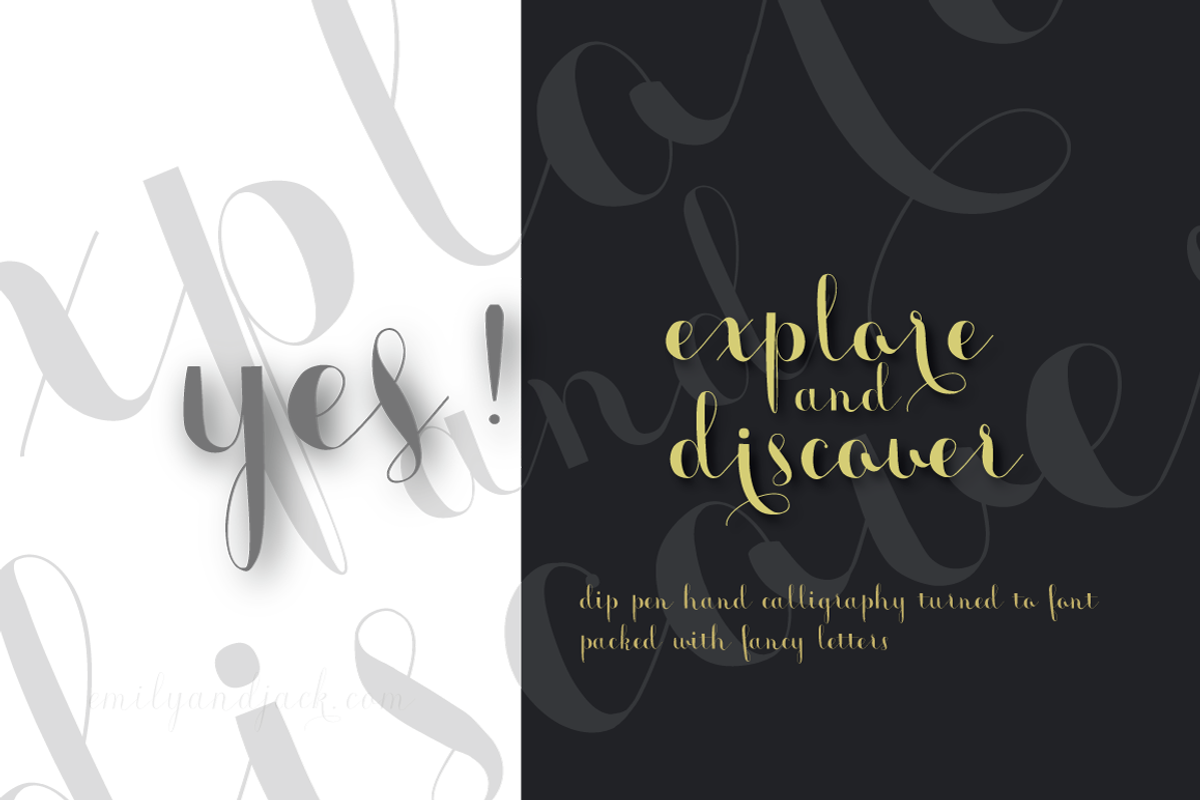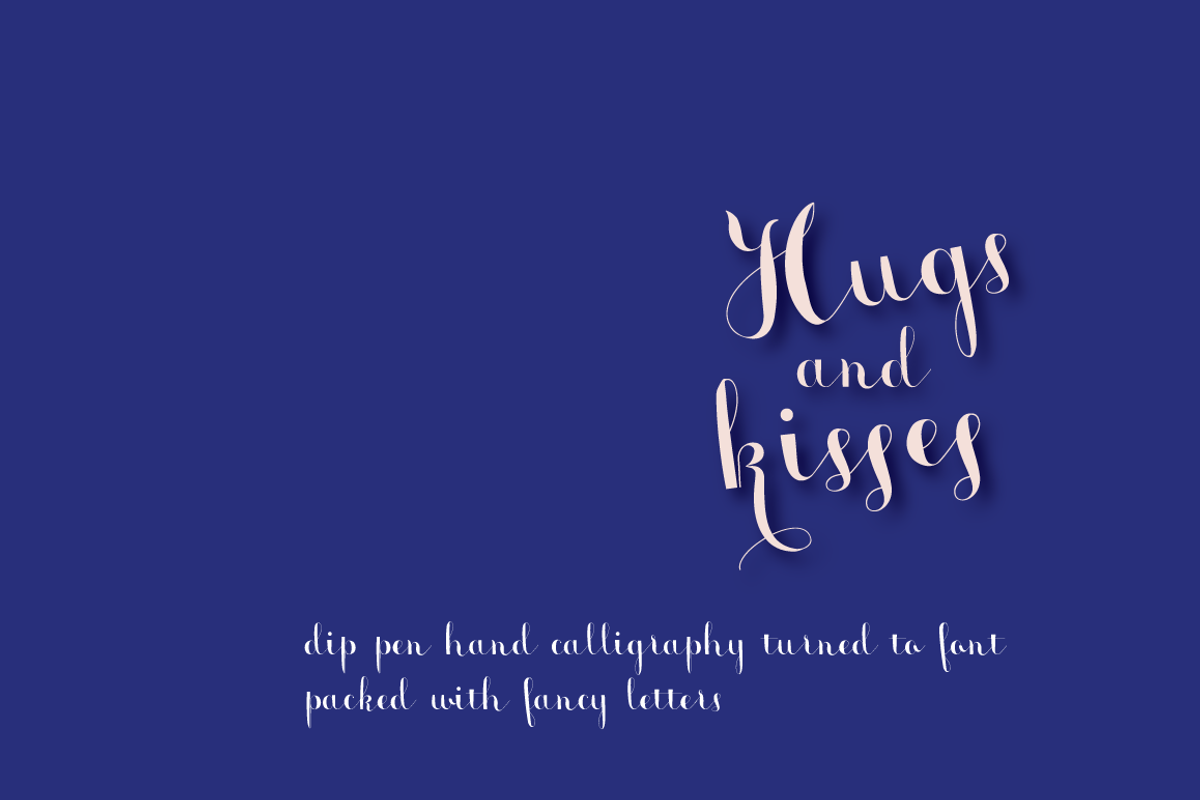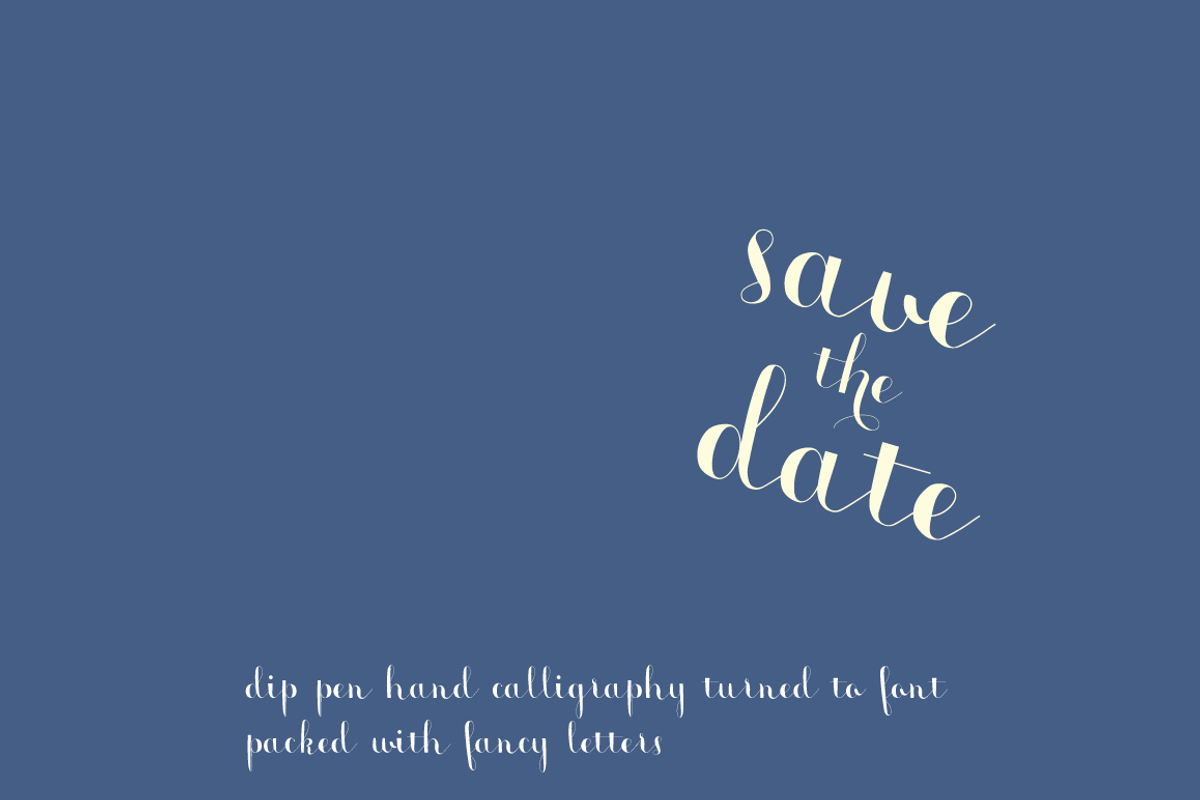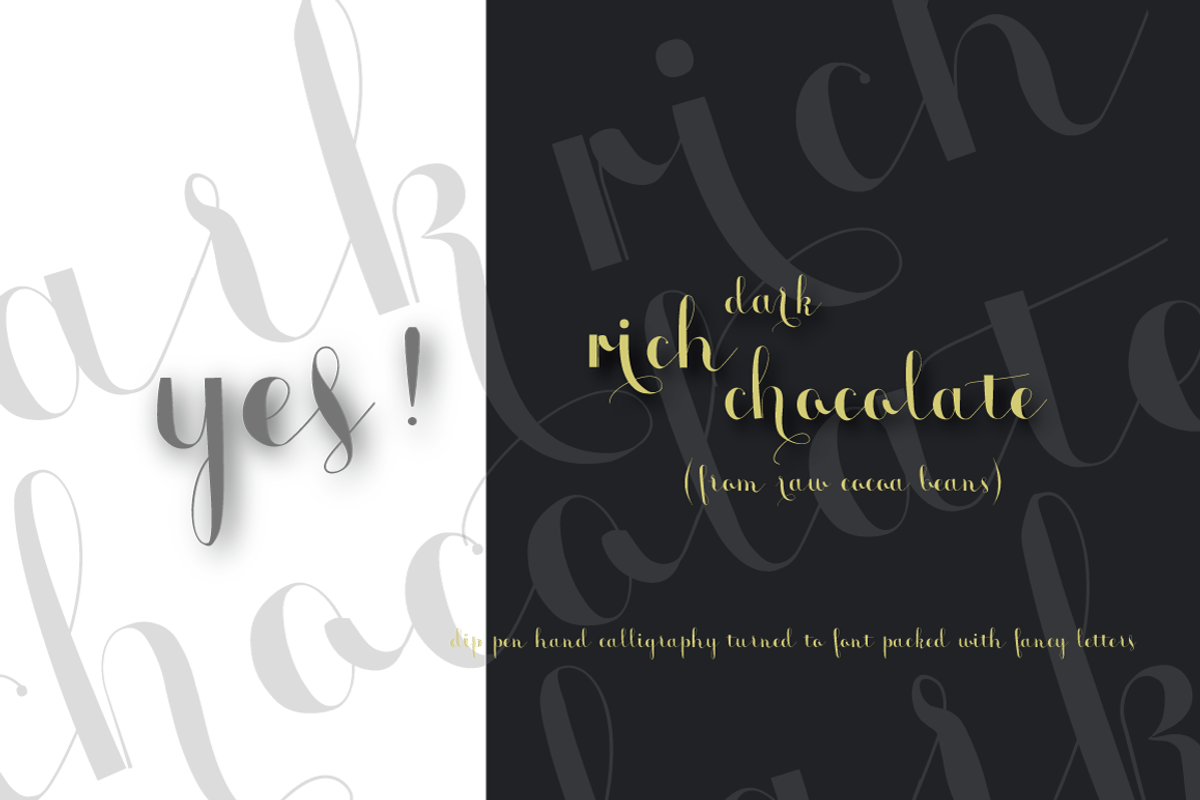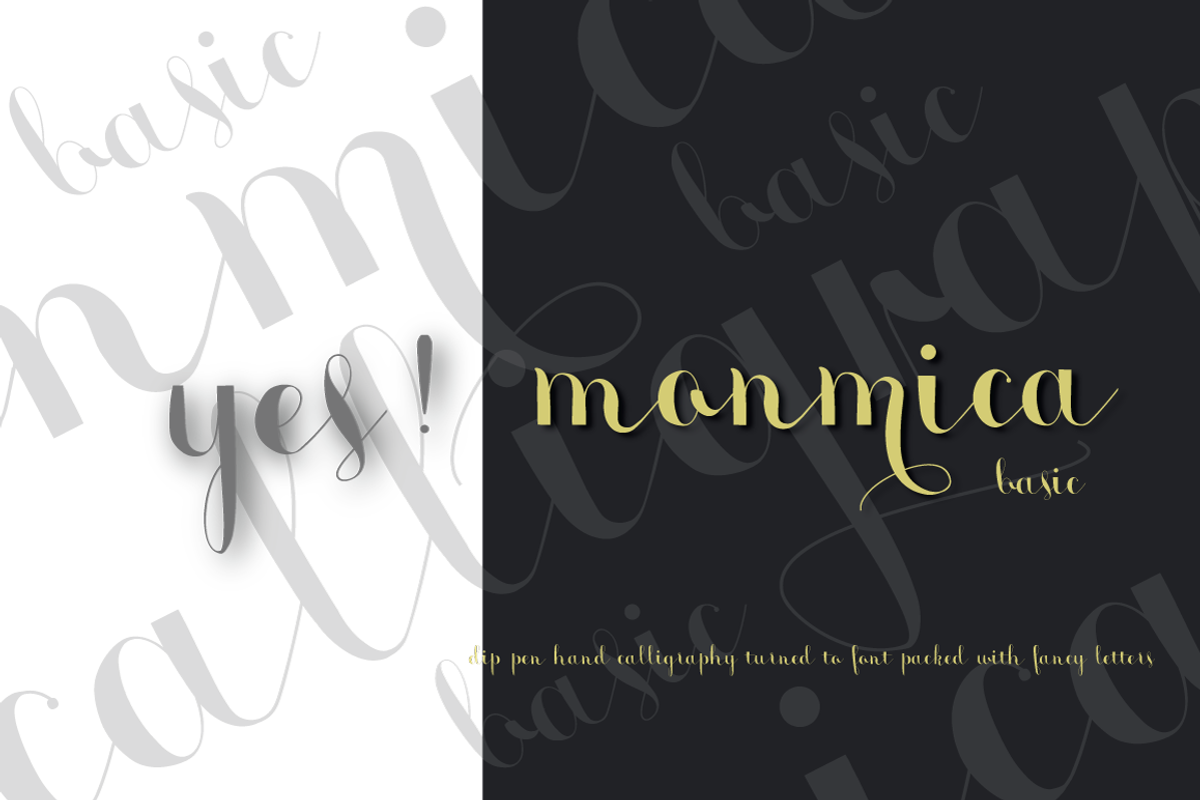
Monmica Basic Font
Monmica Basic Font by Aga Silva is a font selected for branding, posters, packaging, typography.
Why Monmica Basic Font is worth a look
Monmica Basic Font by Aga Silva fits naturally into Branding, posters, packaging, typography.